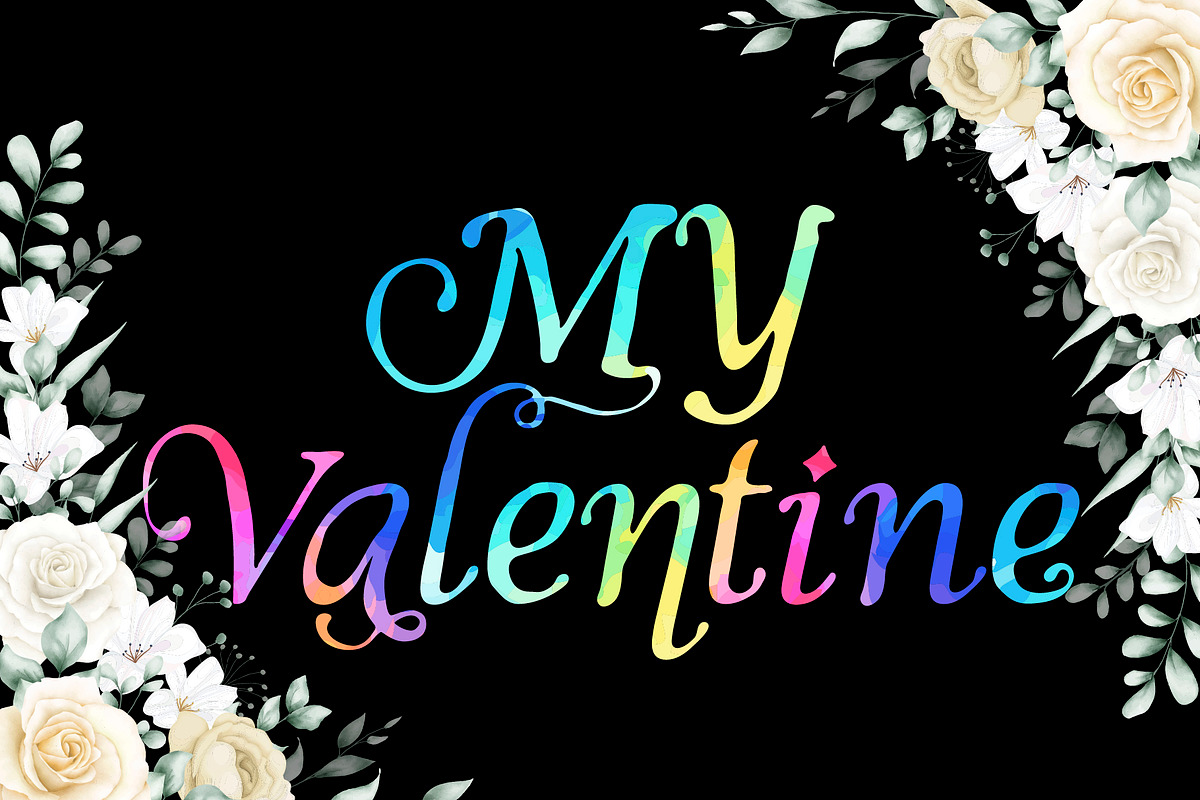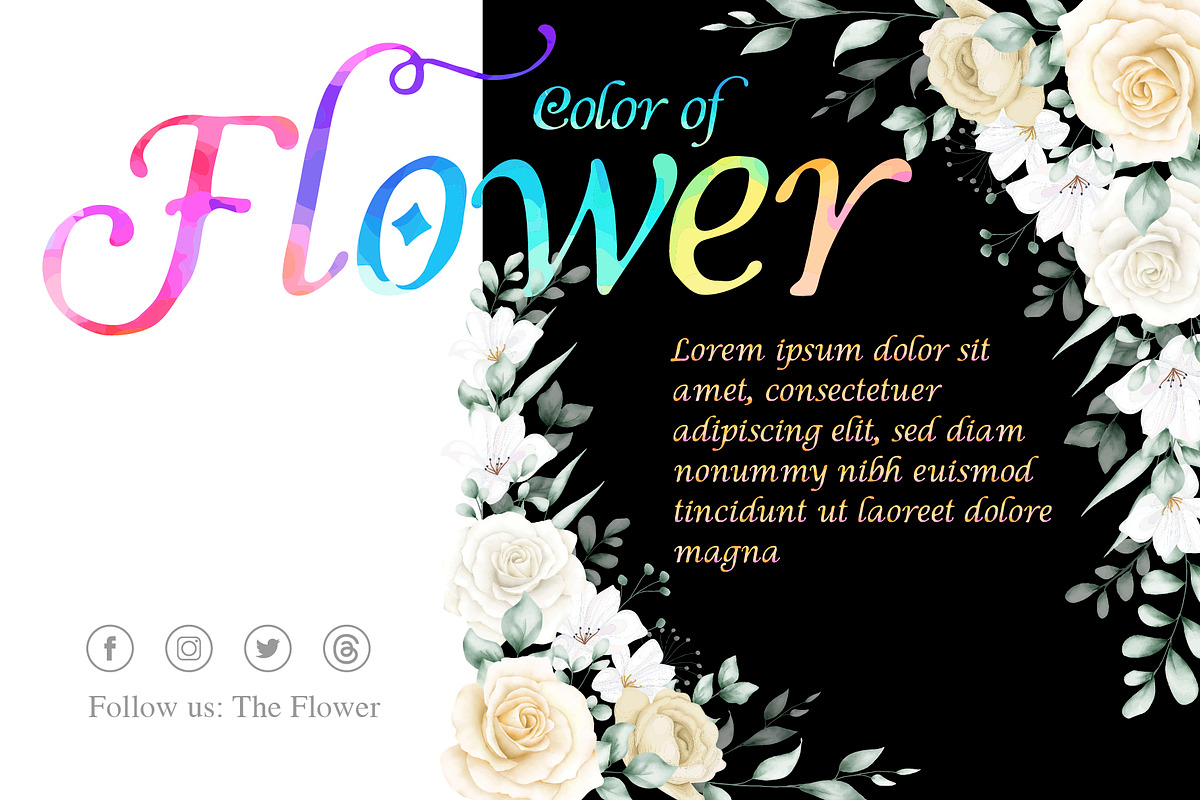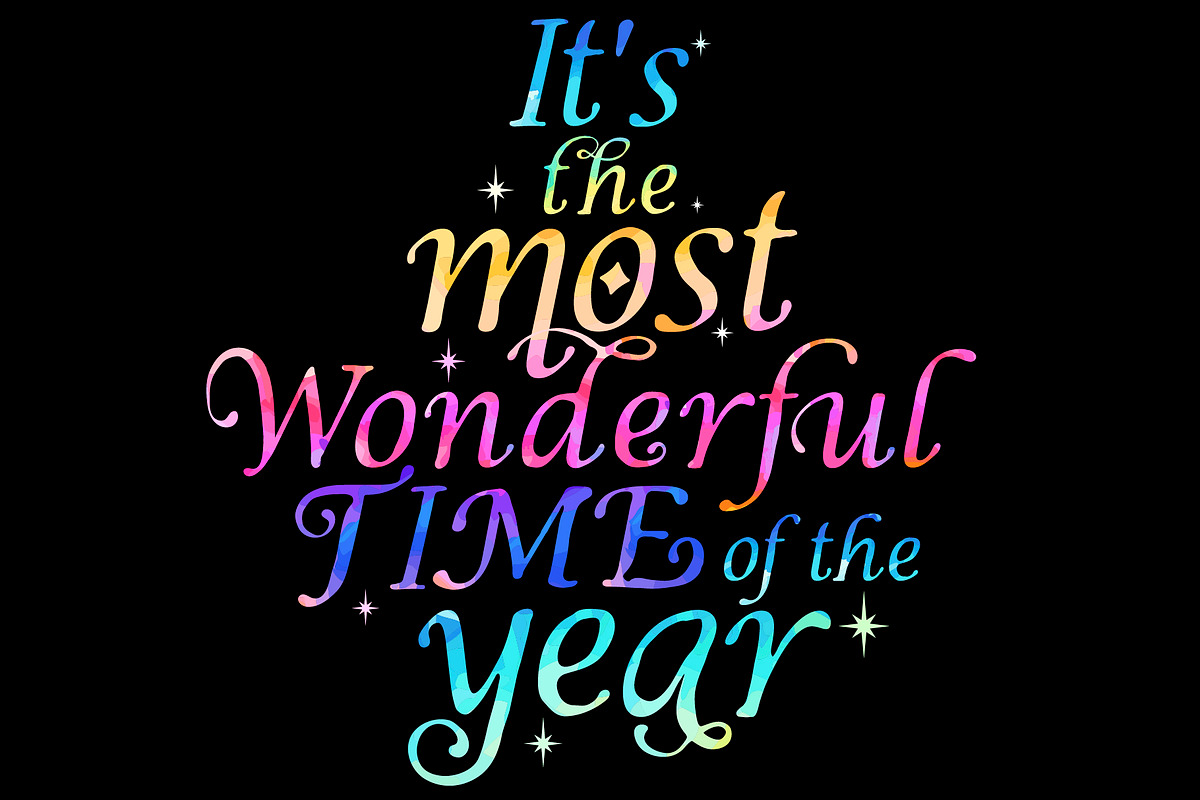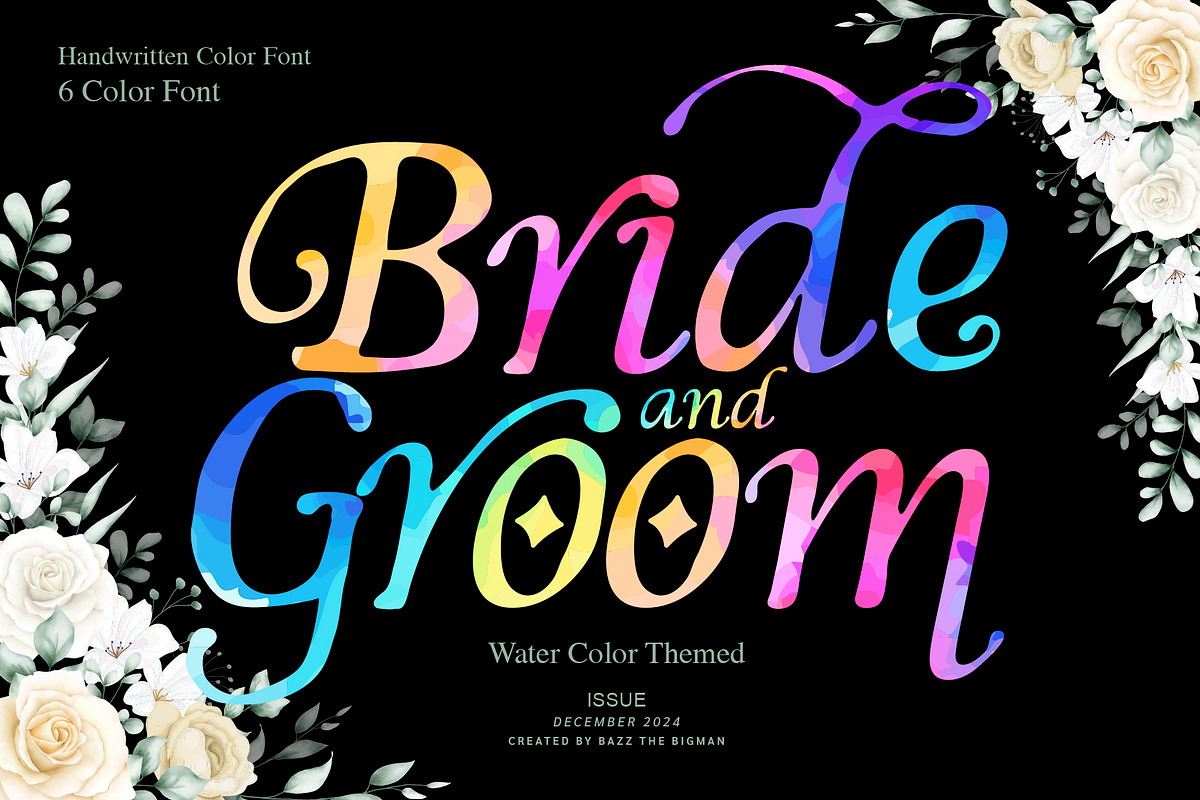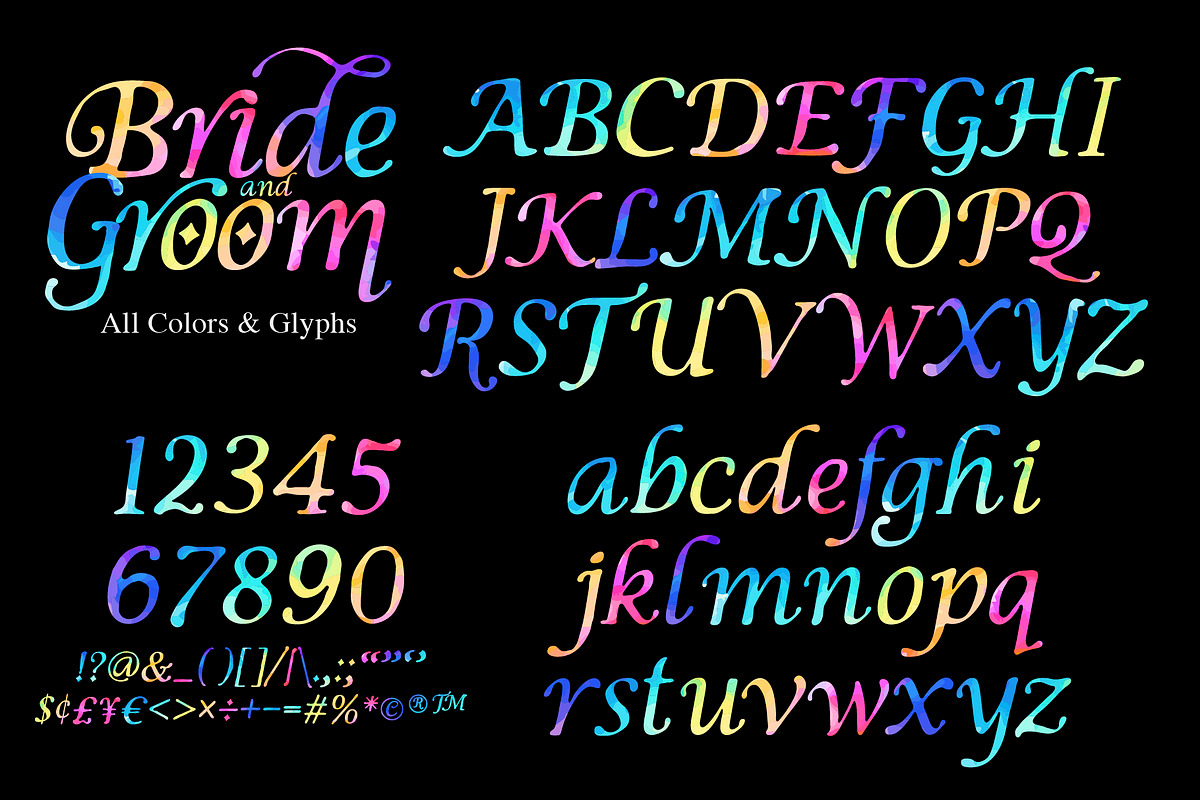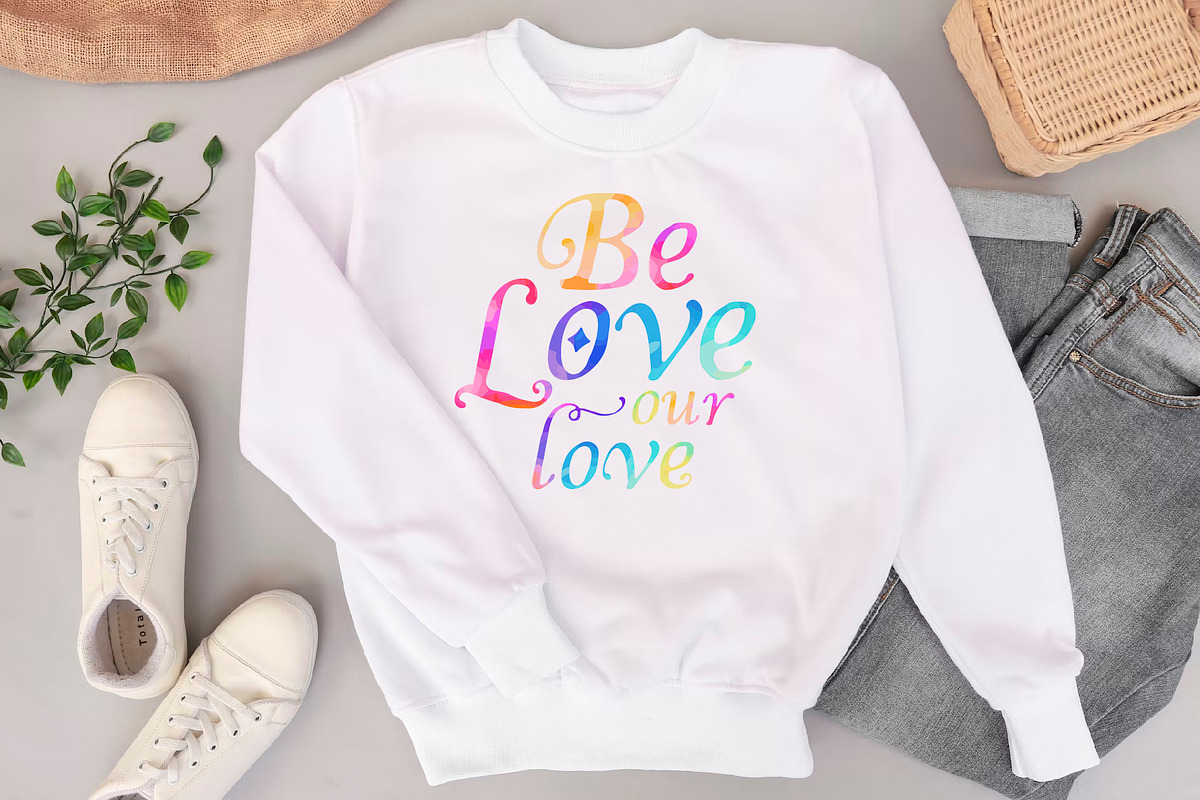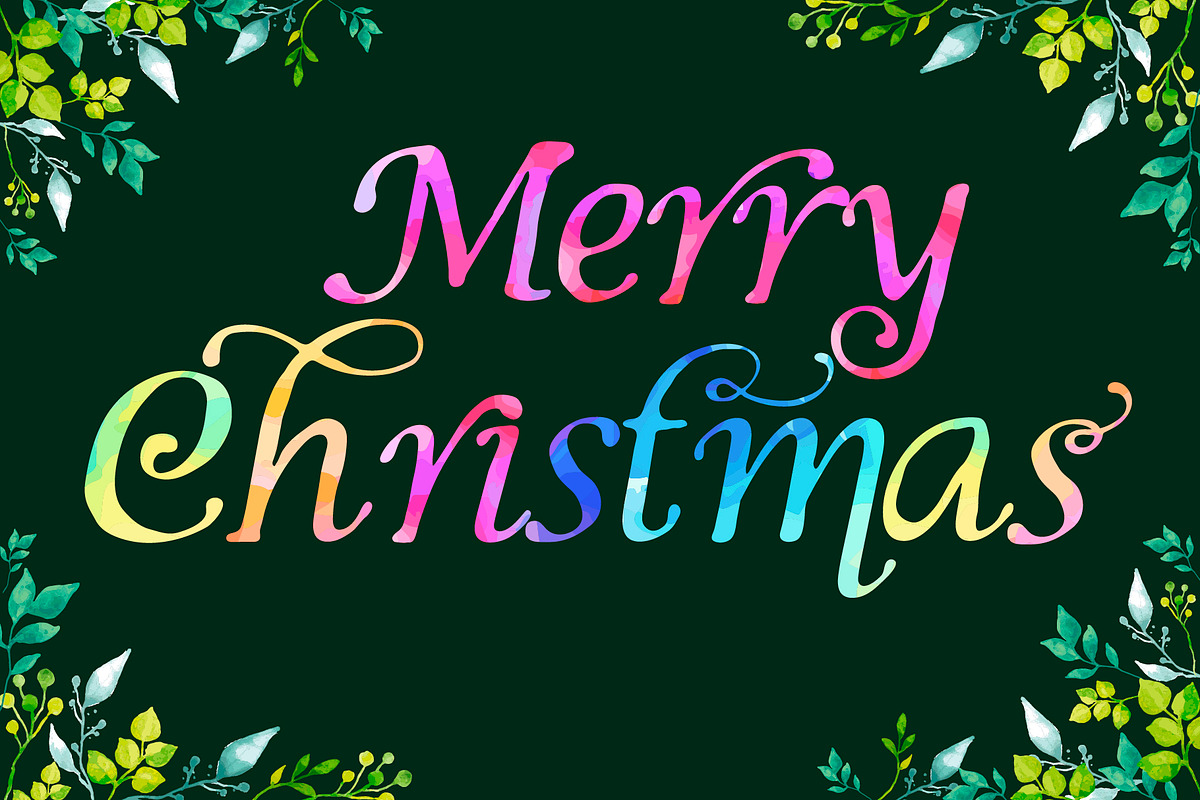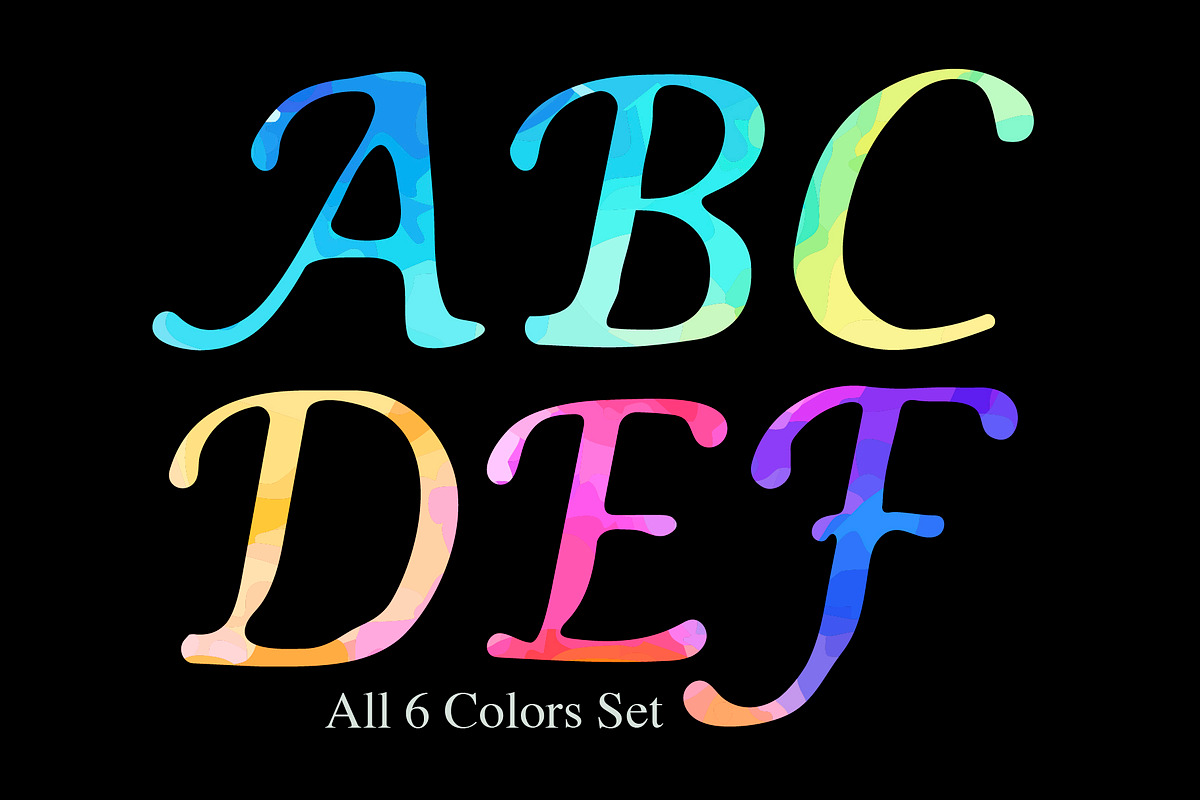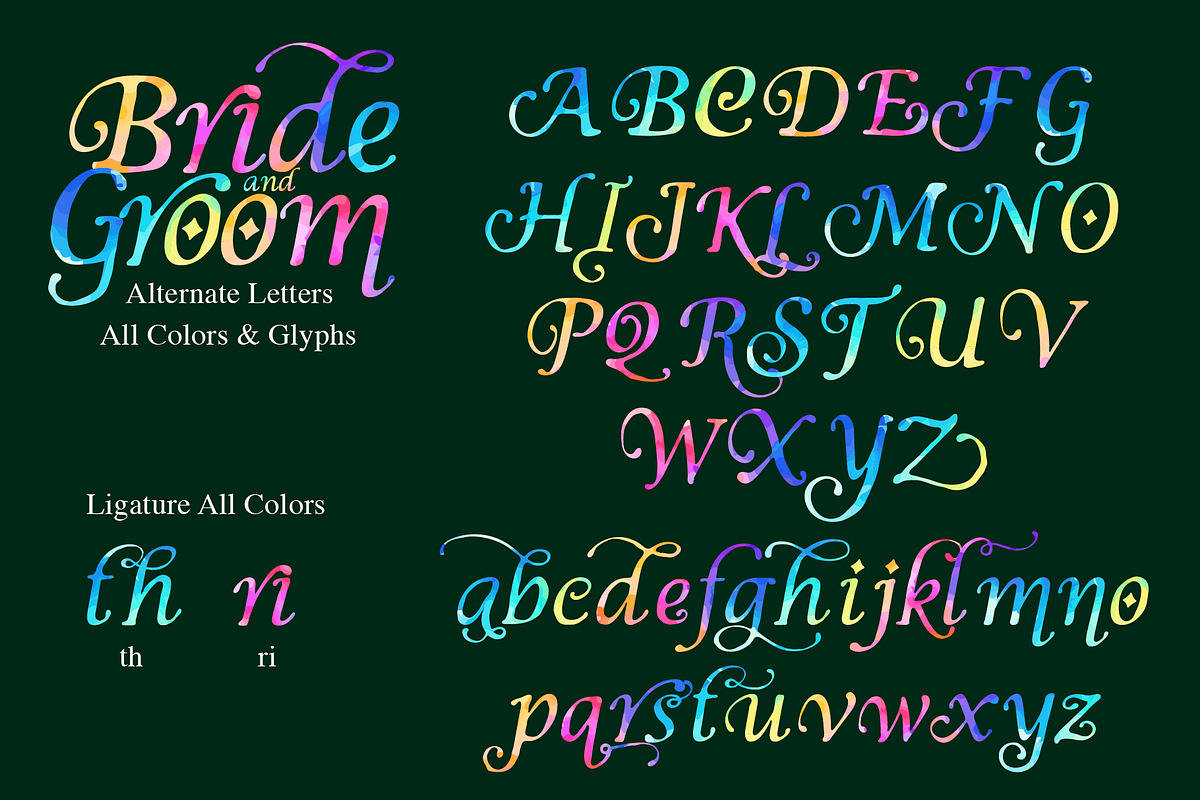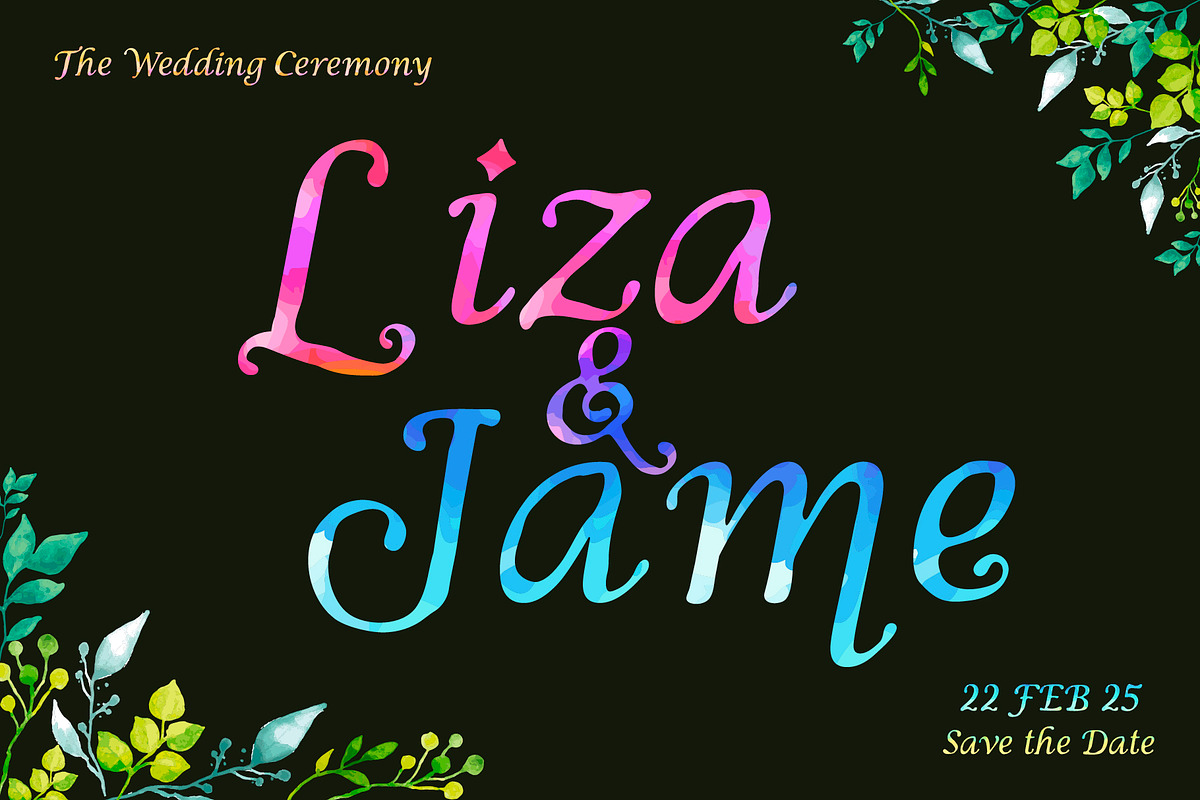
Bride and Groom
Experience the magnificence of Bride and Groom, a color font that embodies style and captivating elegance. Imbued with a watercolor theme, this font radiates an artistic sophistication that brightens up any project. Whether for a Christmas celebration, a dreamy wedding card, or heartwarming Valentine message, this font accentuates the joy of every occasion. With PUA encoding, this font ensures an effortless experience as you can effortlessly access all glyphs and swashes. Revel in the charm that the Bride and Groom font brings to your creative endeavors, while enjoying enhanced user-friendly functionality.